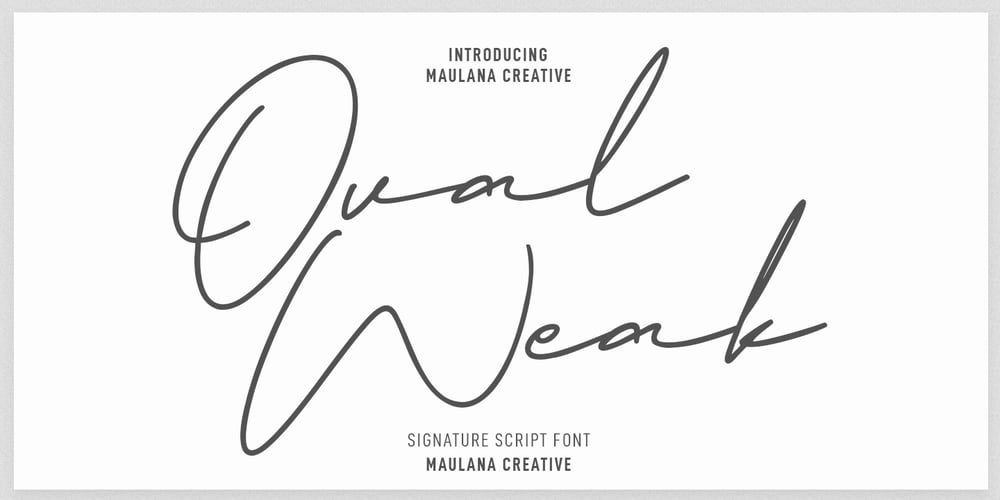
Ovalweak
Ovalweak font
Ovalweak Font Family was designed by Gilang Maulana and published by Maulana Creative. Ovalweak contains 1 styles and family package options. Ovalweak is a Fancy Signature script font. With light mono-line stroke, slant and fun character with a bit of ligatures. To give you an extra creative work. Ovalweak font support multilingual more than 100+ language. This font is good for logo design, Social media, Movie Titles, Books Titles, a short text even a long text letter and good for your secondary text font with sans or serif. Make a stunning work with Ovalweak font.